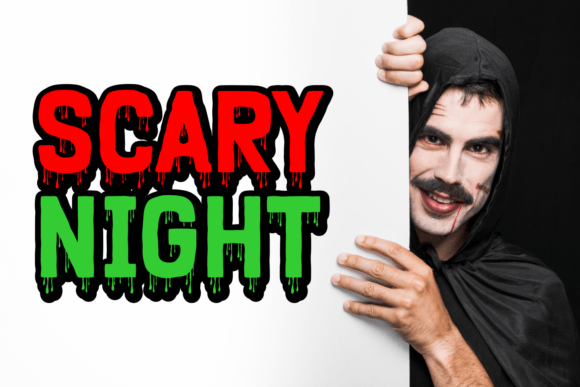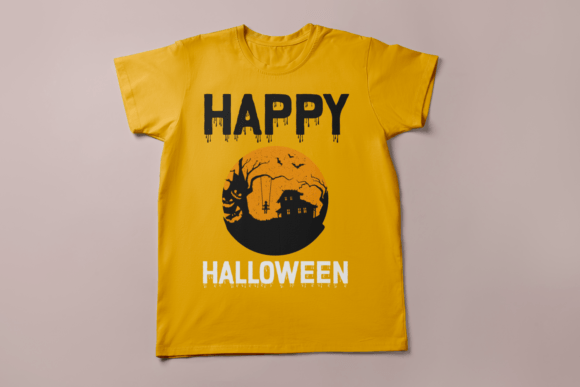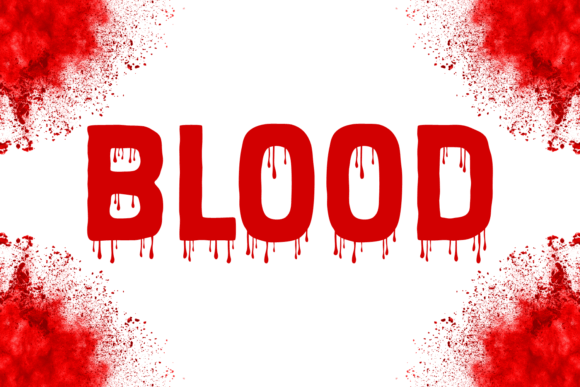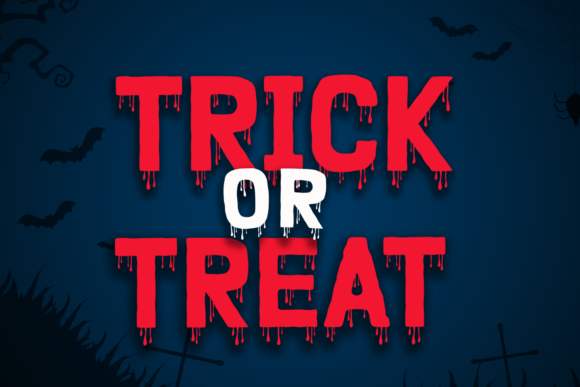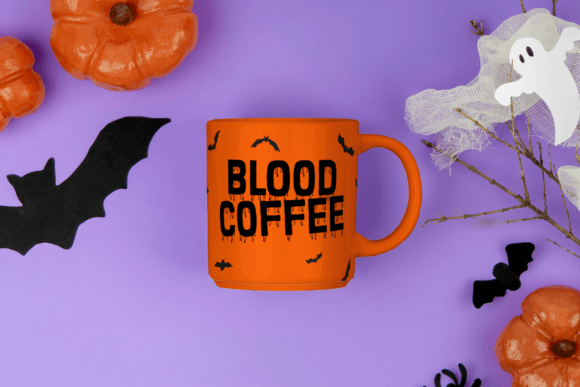
Introducing Chill Night Font: Elevate Your Creativity with this Unique Display Font
Are you tired of using the same old fonts for your creative projects? Look no further! Chill Night Font is an incredibly unique display font that is sure to take your designs to the next level. Masterfully designed to become a true favorite, this font has the potential to bring each of your creative ideas to the highest level. In this article, we’ll dive into the features and benefits of Chill Night Font, and explore how it can elevate your designs and take your creativity to new heights.
What Makes Chill Night Font So Special?
Chill Night Font is a one-of-a-kind display font that boasts a distinctive and stylish aesthetic. Its unique design makes it perfect for a wide range of creative projects, from branding and advertising to packaging and digital media. The font’s elegant and sophisticated look is sure to capture the attention of your audience and leave a lasting impression.
One of the standout features of Chill Night Font is its versatility. Whether you’re looking to create a bold and dramatic statement or a more subtle and understated design, this font can do it all. Its wide range of applications makes it an excellent addition to any designer’s toolkit.
Key Features of Chill Night Font
- Unique and Exclusive Design: Chill Night Font features a distinctive and stylish design that sets it apart from other fonts.
- High-Quality and Readable: The font is designed to be highly readable, even at small sizes, making it perfect for a wide range of applications.
- Multilingual Support: Chill Night Font supports multiple languages, making it a great choice for designers working on international projects.
Benefits of Using Chill Night Font
So why choose Chill Night Font for your next creative project? Here are just a few benefits of using this amazing display font:
- Adds a Touch of Elegance: Chill Night Font adds a touch of elegance and sophistication to any design, making it perfect for high-end branding and advertising projects.
- Stand Out from the Crowd: The font’s unique design ensures that your project will stand out from the crowd and grab the attention of your audience.
- Increases Creativity: With Chill Night Font, you’ll be able to bring your creative ideas to life in a way that’s both stylish and effective.
- Time-Saving: The font’s high-quality design means you can achieve professional-looking results in no time, saving you time and effort.
How to Use Chill Night Font in Your Designs
Using Chill Night Font in your designs is easy! Here are a few tips to get you started:
- Pair it with Other Fonts: Chill Night Font pairs well with a wide range of other fonts, making it easy to create stunning combinations.
- Experiment with Colors: The font looks great in a variety of colors, so don’t be afraid to experiment and find the perfect hue for your design.
- Use it for Headings and Titles: Chill Night Font is perfect for headings and titles, where its unique design can really shine.
| Font Name | Chill Night Font |
| Author | Damai (7NTypes) |
In conclusion, Chill Night Font is an incredibly unique and versatile display font that’s sure to take your creative projects to the next level. With its elegant and sophisticated design, multilingual support, and ease of use, this font is a must-have for designers and crafters looking to add a touch of style and creativity to their work. So why wait? Download Chill Night Font today and start bringing your creative ideas to life in a way that’s both stylish and effective!